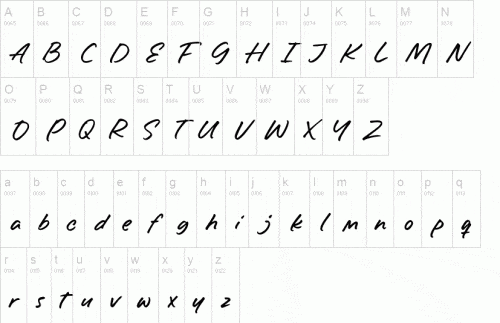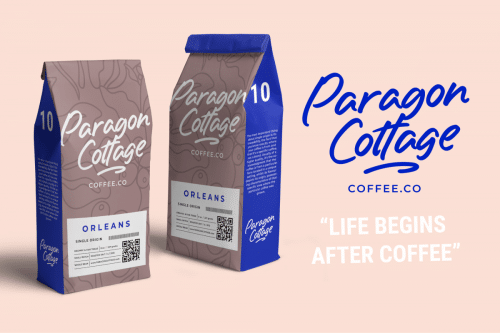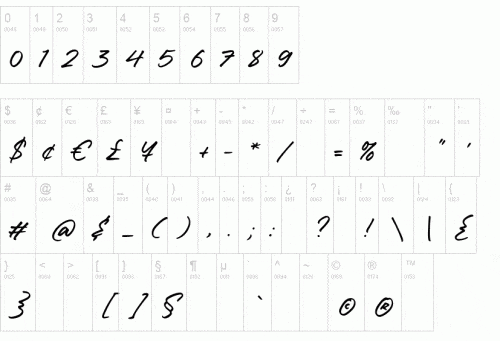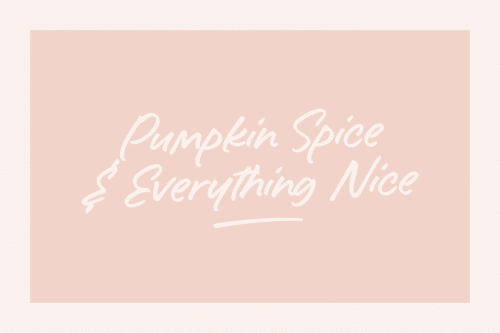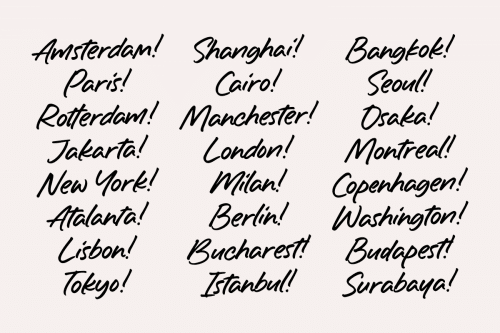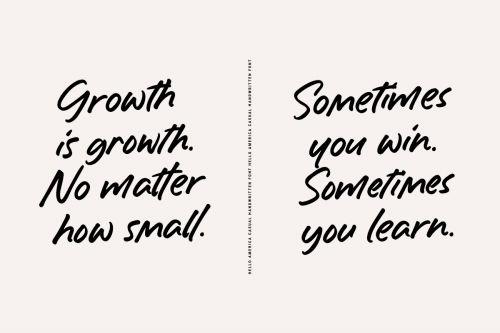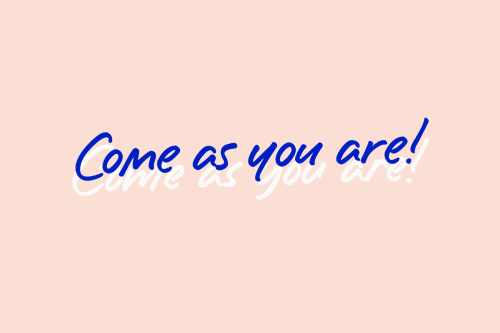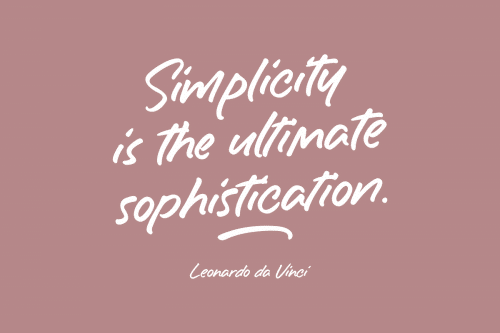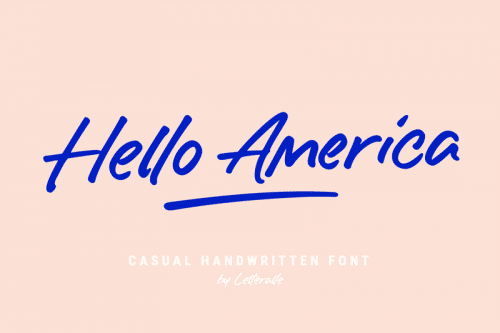
Introducing Hello America!
A silky smooth handwritten font with a personal charm. Hello America come with stylish alternate, swashes, and ligature to recreate custom made style and and avoid boring impression.
This font also come with multilingual support. Hello America is suitable for your design needs such as product packaging, merchandise, social media design, T-shirts, Logotype, and more.